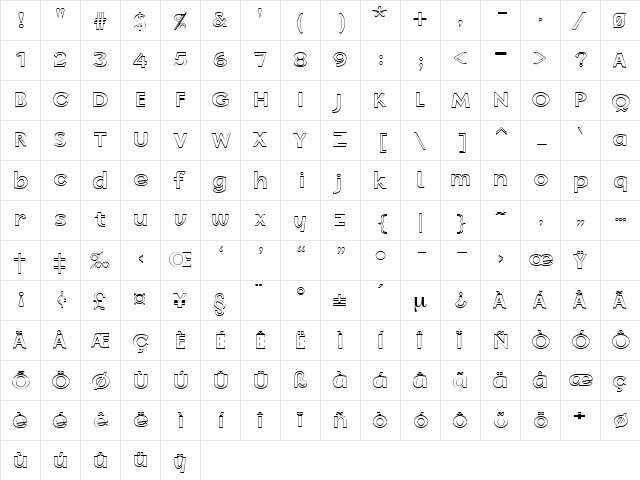
LimousineOpen Regular
Design Context for LimousineOpen Typeface
LimousineOpen offers clean, dependable letterforms without strong stylistic allegiance, making it a practical choice for designers who need flexibility.